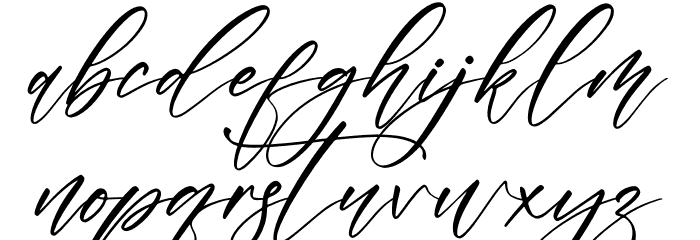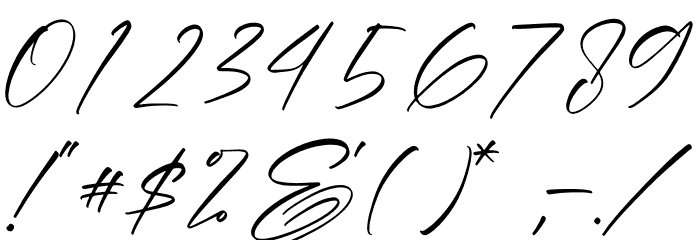
Gashina Beauty Font
This font exudes elegance and sophistication with its fluid, cursive style. The uppercase letters are gracefully connected, creating a seamless flow that is both artistic and refined. The lowercase letters maintain a consistent slant, enhancing the script's natural rhythm. Numbers and special characters are crafted with the same attention to detail, ensuring a cohesive look across all elements. The strokes are varied, with some letters featuring delicate thin lines while others boast bold, sweeping curves. This contrast in stroke thickness adds depth and visual interest, making it ideal for projects that require a touch of class and creativity.
A sophisticated cursive font with elegant, flowing strokes and varied thickness.
- Font: Gashina Beauty
- Proposed Projects: Ideal for wedding invitations, luxury branding, elegant stationery, and artistic logos.
- Category: Script
- Overall Style: Elegant
- Use Case: Logos, Invitations, Branding